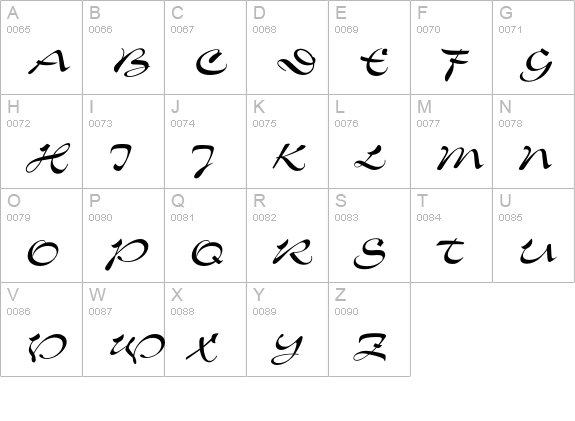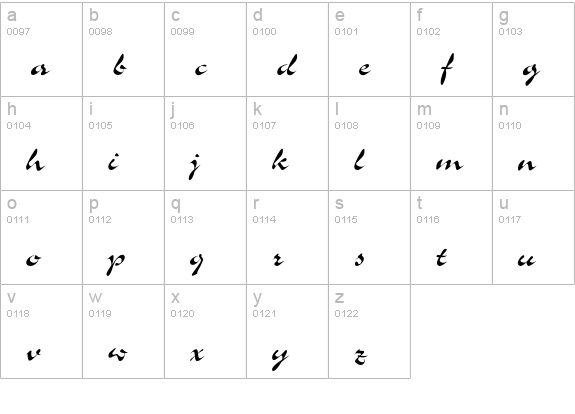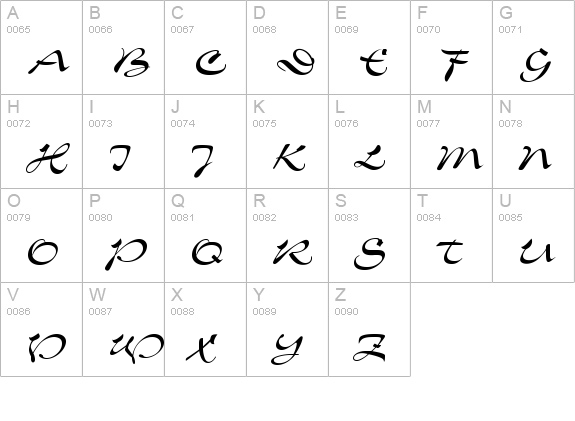
SloganEF Font Details
Introducing SloganEF font, a captivating and versatile typeface that effortlessly blends modern sophistication with timeless elegance. With its sleek and stylish design, SloganEF font is the perfect choice for any project that demands attention and professionalism. Featuring a wide range of meticulously crafted letterforms, this font exudes confidence and charisma, making it an ideal option for branding, logo design, advertising, and much more. Its clean lines and well-balanced proportions ensure legibility and readability across various mediums, whether it be print or digital. But what truly sets SloganEF font apart is its accessibility. It is freely available to download at FontsMarket.com, allowing designers, creatives, and enthusiasts alike to unleash their creative potential without any restrictions. This font empowers users to express their unique visions and ideas with ease, making it an invaluable asset for any project. Whether you're designing a website, creating eye-catching social media graphics, or crafting compelling marketing materials, SloganEF font offers endless possibilities. Its extensive character set includes a variety of stylistic alternates, ligatures, and swashes, providing endless combinations to further elevate your designs. Moreover, SloganEF font is compatible with both Mac and PC platforms, ensuring seamless integration into your existing workflow. Its robust and reliable performance guarantees a smooth and hassle-free experience for designers of all levels of expertise. In a world where creativity knows no bounds, SloganEF font stands as a beacon of inspiration, igniting endless possibilities for designers and typographers alike. So why settle for ordinary when you can have extraordinary? Download SloganEF font today from FontsMarket.com and embark on a typographic journey that will leave a lasting impression. Unleash your creativity, and let SloganEF font be your ultimate tool for self-expression.